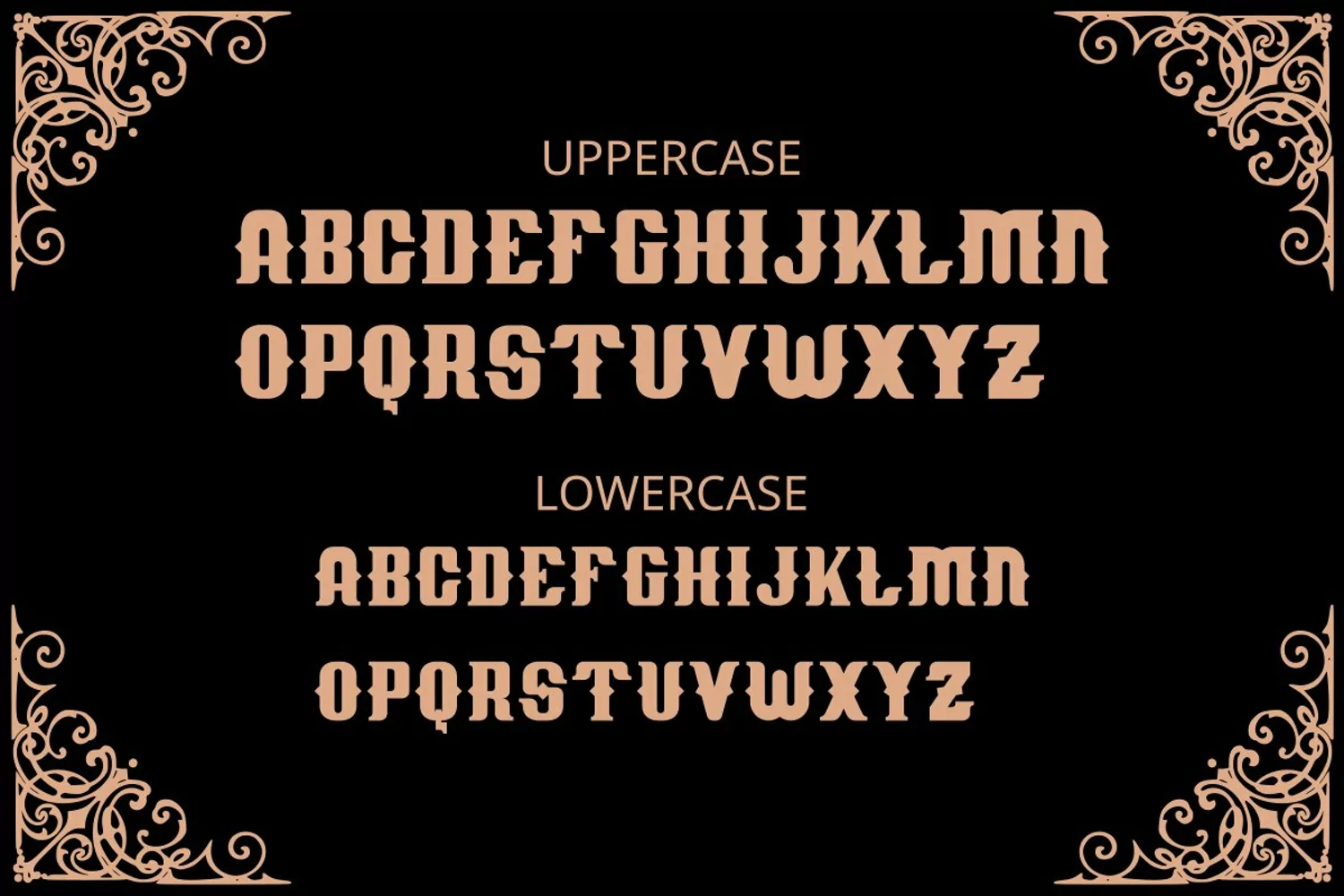
Abhiseva feels equally charming and elegant. Sclupture Art with elegant ,luxury, beauty and classy characteristics. This font is conceptualized seriously and deeply to make it a truly extraordinary font.It looks stunning on wedding invitations, thank you cards, quotes, greeting cards, logos, business cards and every other design which needs of a art.